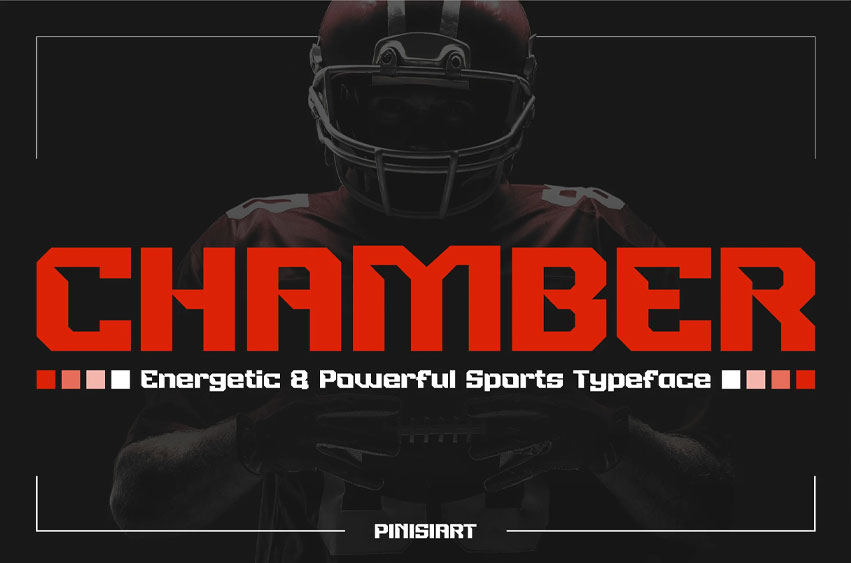
Chamber Font
Chamber Font is a power-packed sports display typeface crafted with blocky proportions, sharply cut terminals, and a square geometric structure that brings a commanding presence to every letter. With its bold and aggressive tone, this typeface screams power and precision, perfect for sports branding, fitness posters, or any layout demanding maximum visual impact. Whether you’re designing for a fight night, a streetball event, or gym merchandise, CHAMBER injects raw grit and forward motion into your message.
Perfect for projects that thrive on adrenaline, strength, and edge, CHAMBER is your go-to font for branding, esports identity, high-impact posters, and editorial headlines. It gives your designs an uncompromising tone, helping audiences feel the intensity even before reading the text. Built for creators seeking a high-energy, commanding presence, CHAMBER makes your words undeniable and unforgettable.
• Heavyweight Appeal, Fast Visual Recognition CHAMBER ensures your message punches through with its all-caps power and grid-tight rhythm.
• Built for Branding & Display Use. Ideal for product logos, team identities, bold marketing slogans, and competitive event posters.
• Clean Alignment with Modern Typography Needs Geometric build, consistent spacing, and easy-to-use glyphs to ensure layout flexibility.
• Stylistic Versatility Perfectly suited for both digital and print environments—from Instagram posts to arena banners.